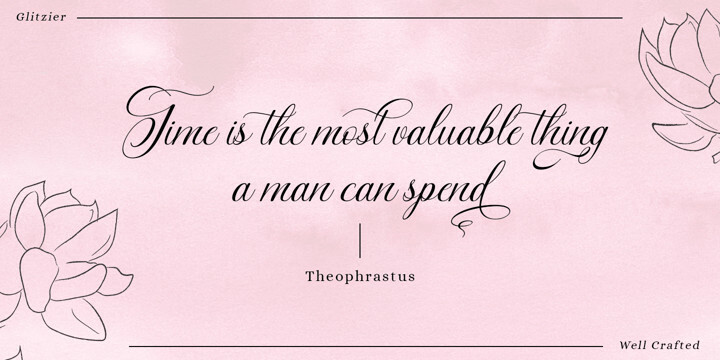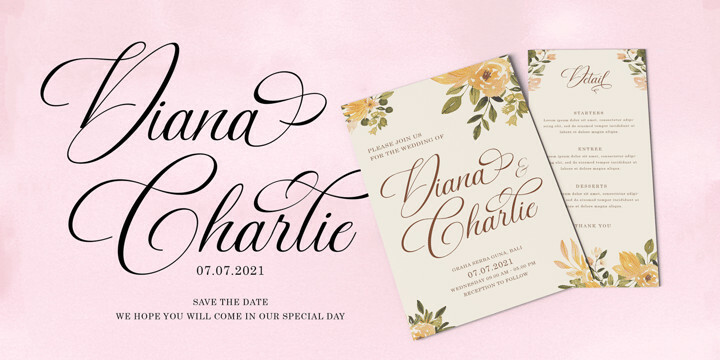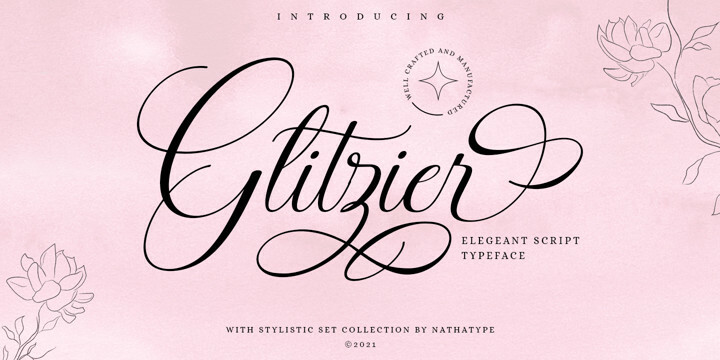
Glitzier Font
Glitzier FontA beautifully handcrafted calligraphy font that’ll make your guests sing and elevate your projects!
Every swash, stroke, and curve was created to entice happiness and elegance. The ideal font for social media banners; posts, and ads, printed quotes, t-shirt designs, packaging, or even as a modern text overlay to any background image.
Our font always includes Multilingual Support to make your branding reach a global audience.